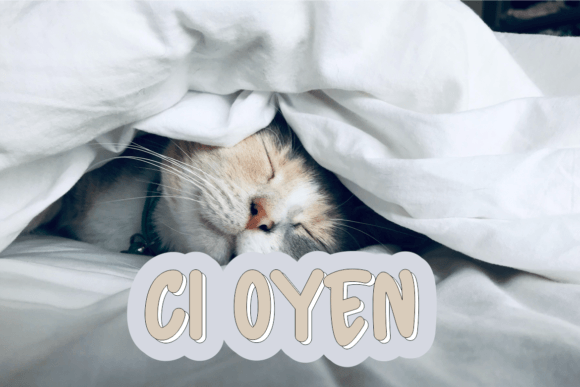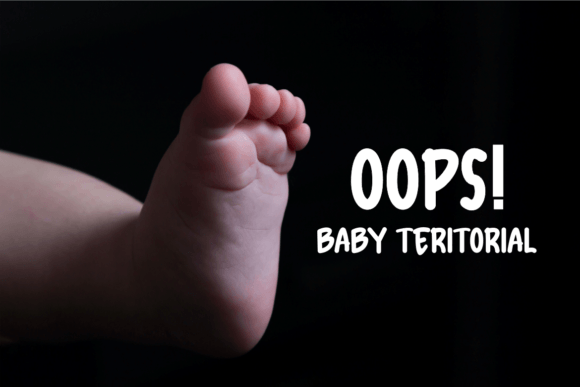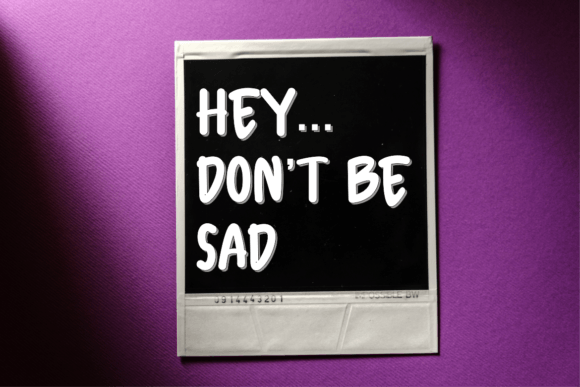
Introduction to Garavien Font
— Garavien Font — is a modern font, perfect for helping your design to be cooler, and more modern.
It is very suitable for products such as logos, t-shirts, mock-ups, banners, and others .
Key Features of Garavien Font
Why Choose Garavien Font?
Garavien Font offers exceptional quality and versatility, making it a valuable addition to your design toolkit. Whether you’re creating for personal projects or commercial use, Garavien Font delivers professional results.